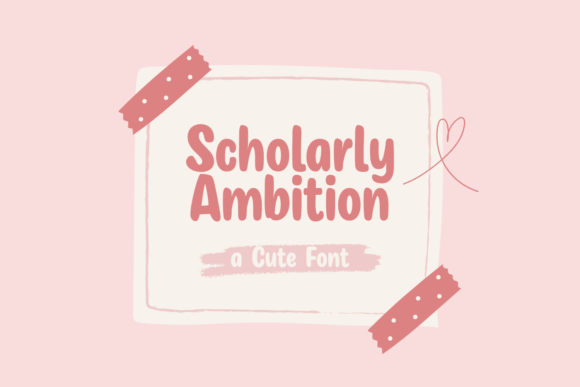
Introducing Scholarly Ambition Font — A Script Font Family That Evokes Playfulness, Creativity, and Endless Opportunities.
Are you tired of the same old boring fonts that fail to capture the unique essence of your designs? Do you long for a font that adds a dash of whimsy and charm to your projects? Look no further; Scholarly Ambition Font is here to ignite your creativity and transform your designs into captivating masterpieces.
Dive into the world of Scholarly Ambition, a delightful display font crafted with meticulous attention to detail. Its elegant curves, playful strokes, and captivating characters dance together, creating a symphony of visual harmony. Whether you're a seasoned designer or just starting your creative journey, Scholarly Ambition Font is your perfect companion, ready to elevate your projects to new heights.
With its playful and expressive nature, Scholarly Ambition Font is a natural fit for a multitude of design endeavors. Unleash your imagination and explore the endless possibilities:
- Adorn your handmade cards, invitations, and scrapbook pages with a touch of whimsical charm.
- Create eye-catching logos, branding materials, and social media graphics that leave a lasting impression.
- Design unique t-shirts, mugs, and other merchandise that showcase your creativity.
- Add a personal touch to your digital designs, such as website headers, blog posts, and e-books.
- Engage your audience with stunning presentations and marketing materials that capture their attention.
But what truly sets Scholarly Ambition Font apart is its ability to evoke emotions and make your designs resonate with your audience. Its playful strokes and cheerful demeanor create a sense of joy and lightheartedness, while its elegant curves and refined details exude a touch of sophistication. With Scholarly Ambition Font, your designs will not only be visually appealing but also emotionally engaging, leaving a lasting impact on those who encounter them.
So, embrace the boundless creativity that awaits you with Scholarly Ambition Font. Dive into a world of playful elegance, where your designs come alive with personality and charm. Let your imagination run wild and explore the endless possibilities. Download Scholarly Ambition Font today and embark on a creative journey like never before!